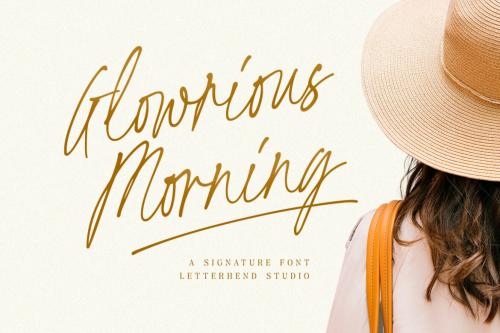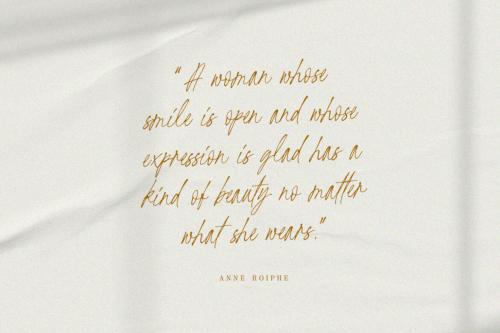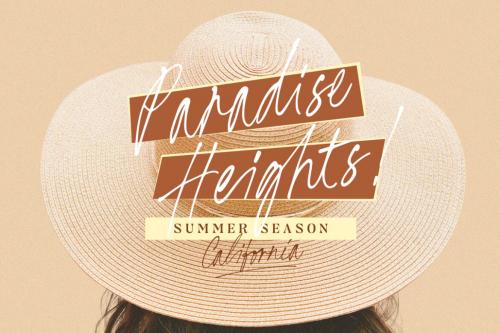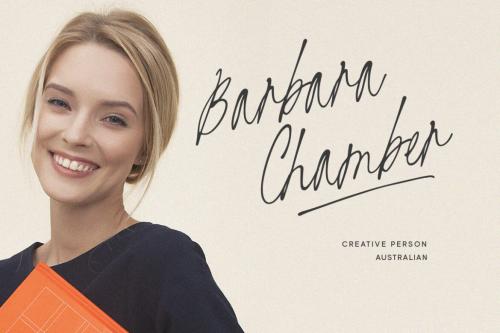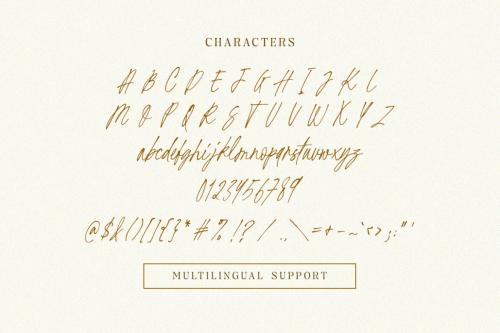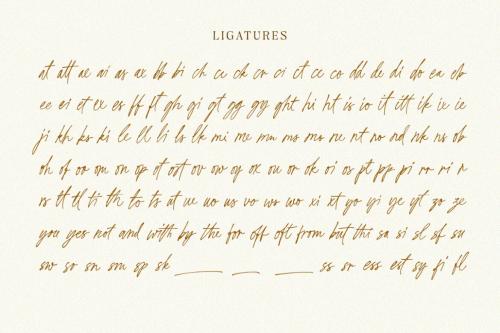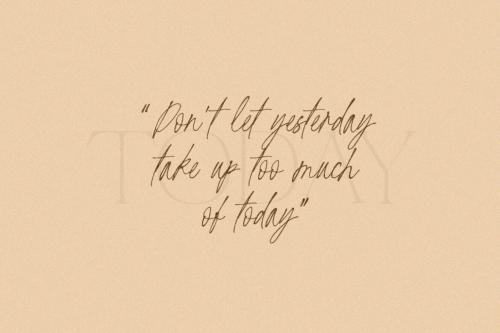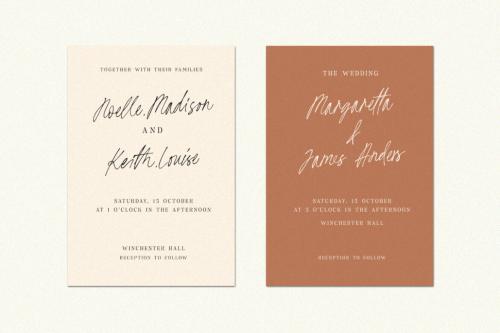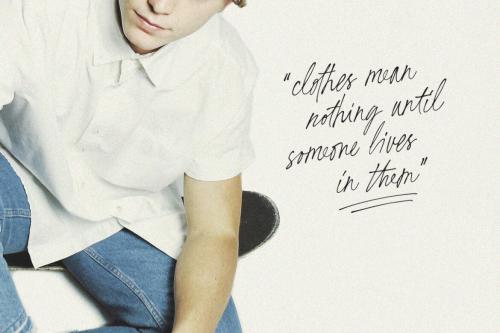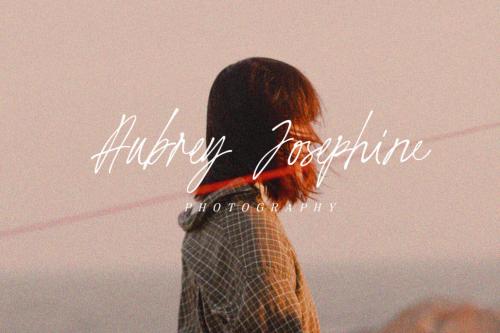
Introducing, Glowrious Morning- A Signature Font. This font has many ligatures, make it looks great to be used for modern and minimalistic design theme. This font perfectly made to be applied especially in logo, and the other various formal forms such as invitations, labels, logos, magazines, books, greeting u002F wedding cards, packaging, fashion, make up, stationery, novels, labels or any type of advertising purpose.